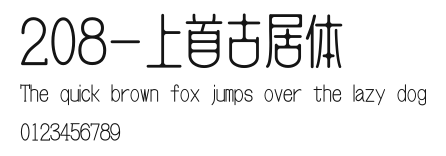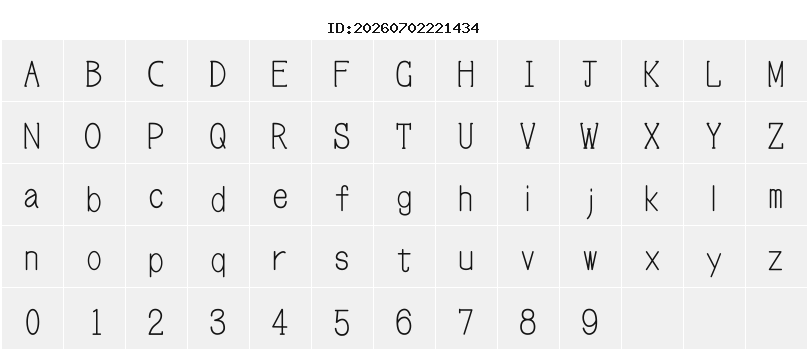
208-上首古居体 Preview
• Font Name: 208-上首古居体
• Font ID: 208-SSGuJvTi:Version 4.00
• Full Font Name: 208-上首古居体
• Version: Version 4.00 December 29, 2022
• PostScript Name: 208-SSGuJvTi
• Character Count: 7567
• Manufacturer: 上首造字
About 208-上首古居体.ttf
208-上首古居体.ttf is a modern, elegant sans-serif font designed for ultimate readability and visual harmony. Perfect for branding, headlines, web design, and print materials.